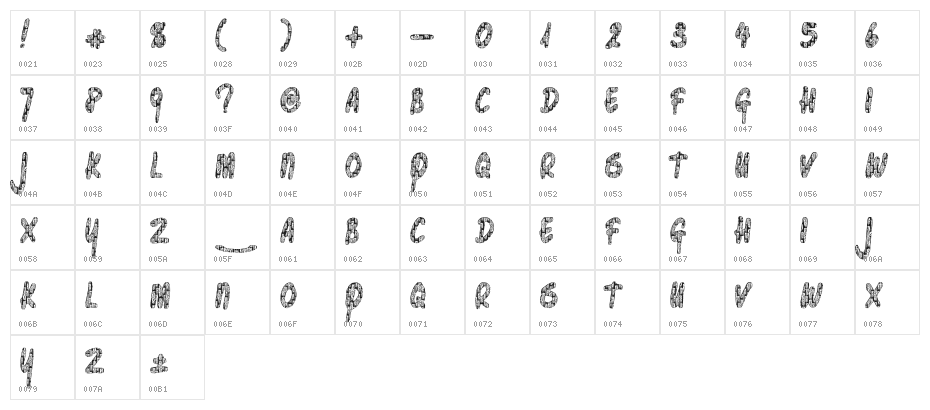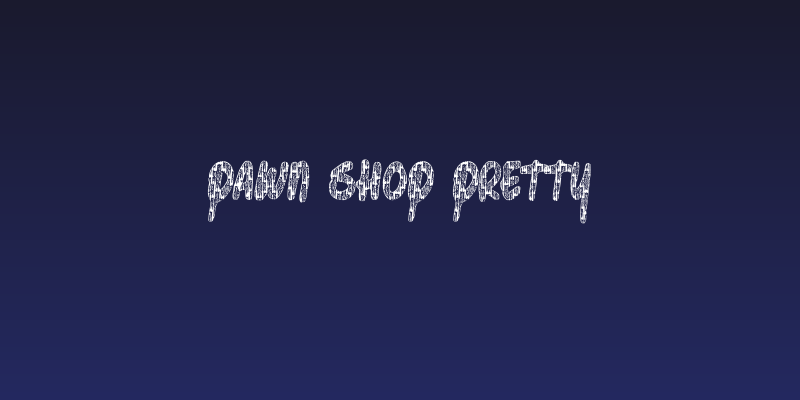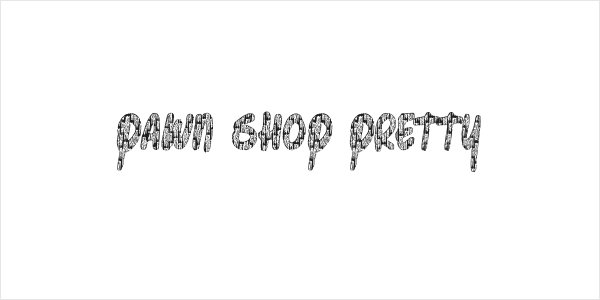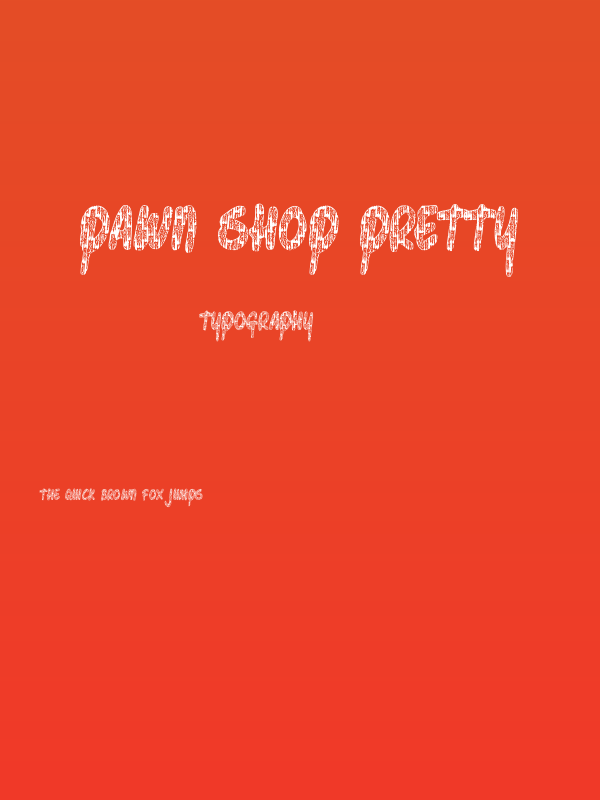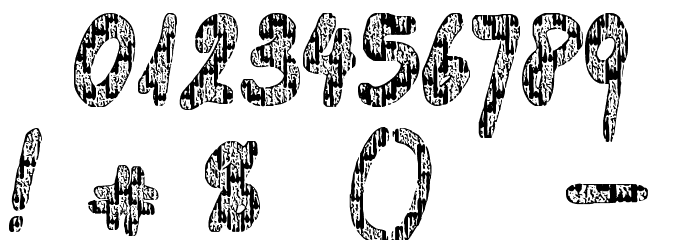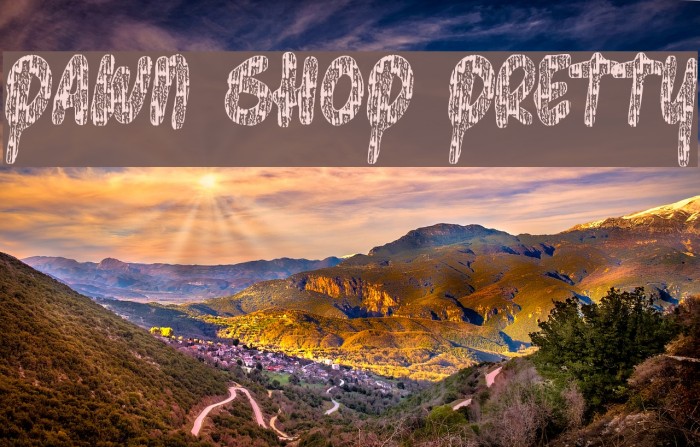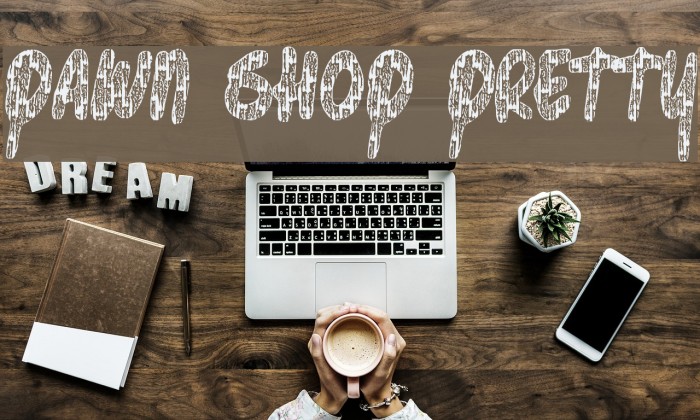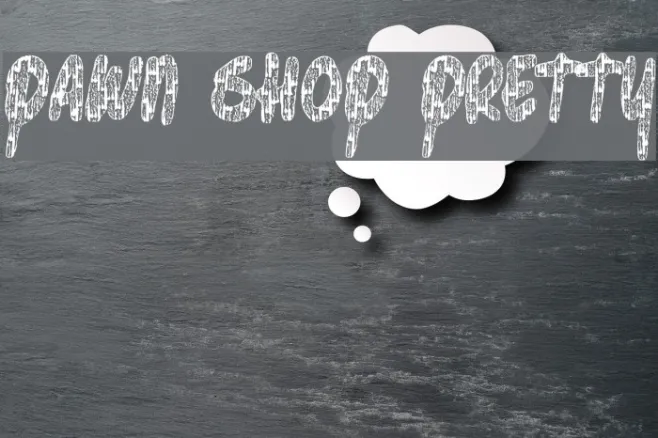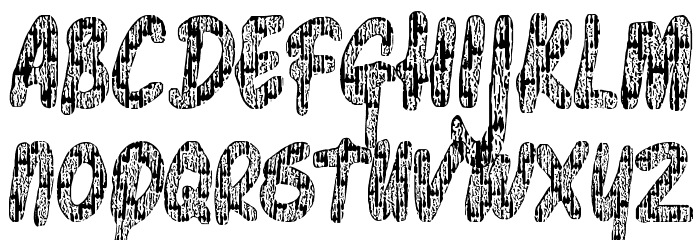
Pawn Shop Pretty Font
Pawn Shop Pretty Description
This font features a bold and textured design, reminiscent of a distressed or grunge style. Each character is filled with a pattern that gives it a rugged, worn appearance, adding a layer of depth and visual interest. The letters are uppercase and lowercase, with numerals and a selection of special characters. The overall look is dynamic and eye-catching, making it suitable for projects that require a strong visual impact. The texture within the letters creates a sense of movement and energy, ideal for creative and artistic applications.
| Proposed Projects | Ideal for posters, album covers, branding for edgy or alternative products, and creative design projects. |